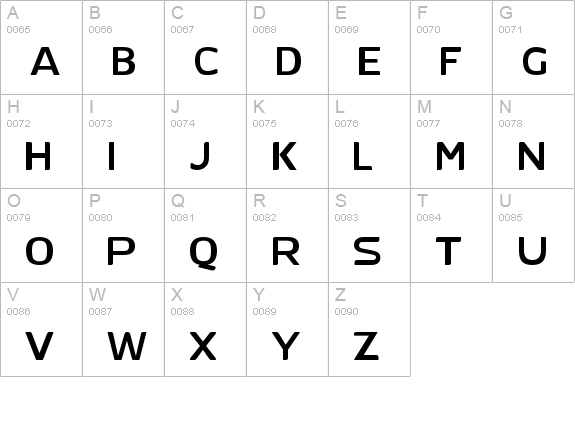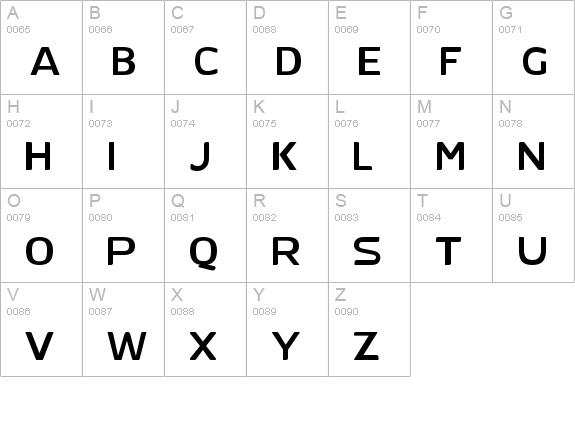
Introducing Skywerd, a breathtaking font that will elevate your designs to new heights. With its sleek and modern aesthetic, Skywerd is the perfect choice for any project that calls for elegance and sophistication. This versatile font is ideal for branding, logo design, posters, invitations, and so much more. Skywerd captivates with its clean lines and precise geometry, exuding a sense of professionalism and refinement. Its unique letterforms are meticulously crafted, creating a harmonious balance between traditional and contemporary design elements. The smooth curves and sharp angles give Skywerd a distinctive edge, making it truly stand out in any composition. One of the most remarkable features of Skywerd is that it is available free of charge. That's right, you can easily download this exceptional font without spending a dime. Simply head over to FontsMarket.com and unlock the full potential of Skywerd for your creative projects. This font is a true gem, as it not only offers exceptional quality but also the freedom to use it without any limitations. Whether you're a professional designer or a creative enthusiast, Skywerd is a must-have in your font collection. Its versatility allows it to seamlessly adapt to various design styles, making it a go-to choice for both digital and print applications. From elegant headlines to captivating body text, Skywerd will effortlessly transform your designs into masterpieces. Don't miss out on the opportunity to enhance your work with the charm and elegance of Skywerd. Download this remarkable font now, completely free of charge, at FontsMarket.com. Elevate your designs to new heights with Skywerd and experience the true power of artistic freedom.